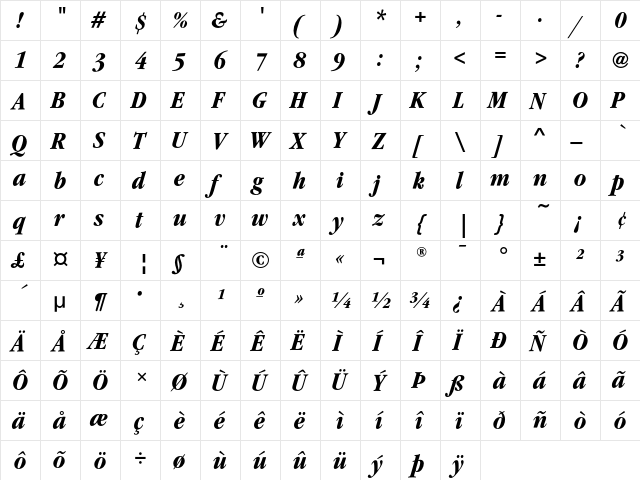
GaramondEF BoldCondensItalic Font Preview
Design Context for GaramondEF Typeface
GaramondEF offers clean, dependable letterforms without strong stylistic allegiance, making it a practical choice for designers who need flexibility. The dynamic lean of this cut emphasises speed and emphasis in any layout. The heavy weight commands attention and anchors typographic hierarchies. Its narrow stance lets it pack a punch even in space-constrained designs.
Pro Tip: Use GaramondEF for emphasis, pull quotes, and subheadings where its slanted energy can add rhythm to the layout.